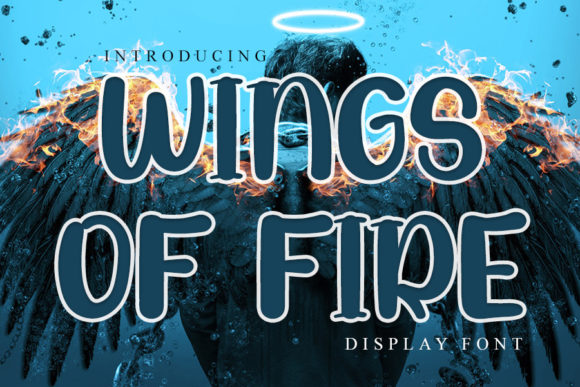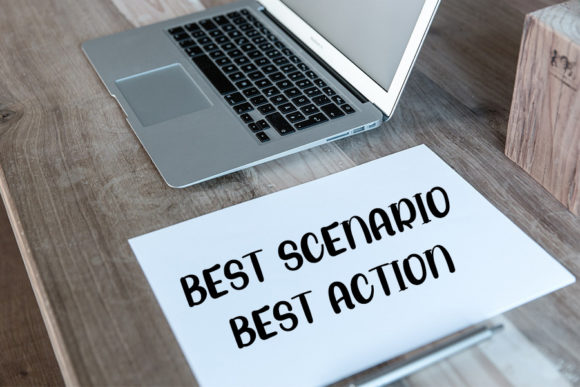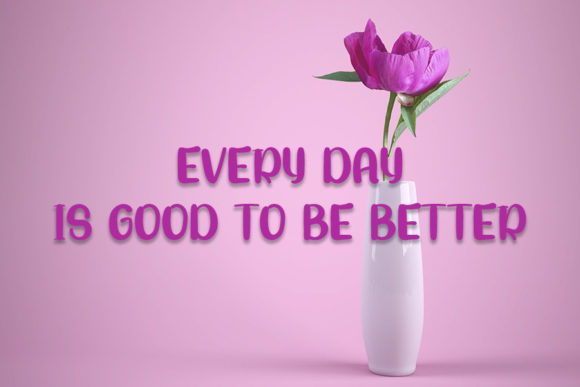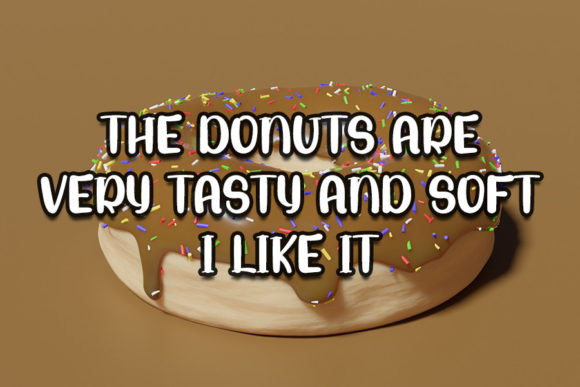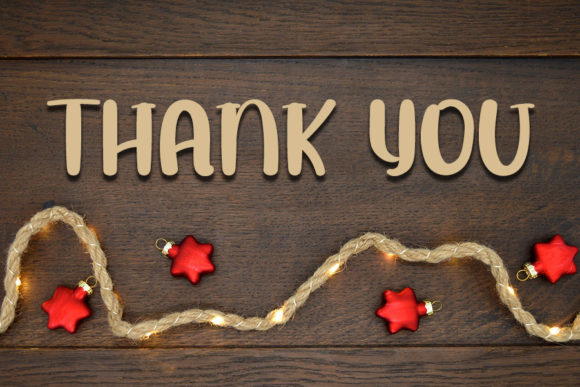
Wings of Fire Font
About Wings of Fire Font
Wings Of Fire is a stylish handwritten font with a contemporary atmosphere and impeccable form, inspired by a timeless classic calligraphy. Not too thin and not too thick, balanced and varied, this font was designed to enhance the beauty of your projects.